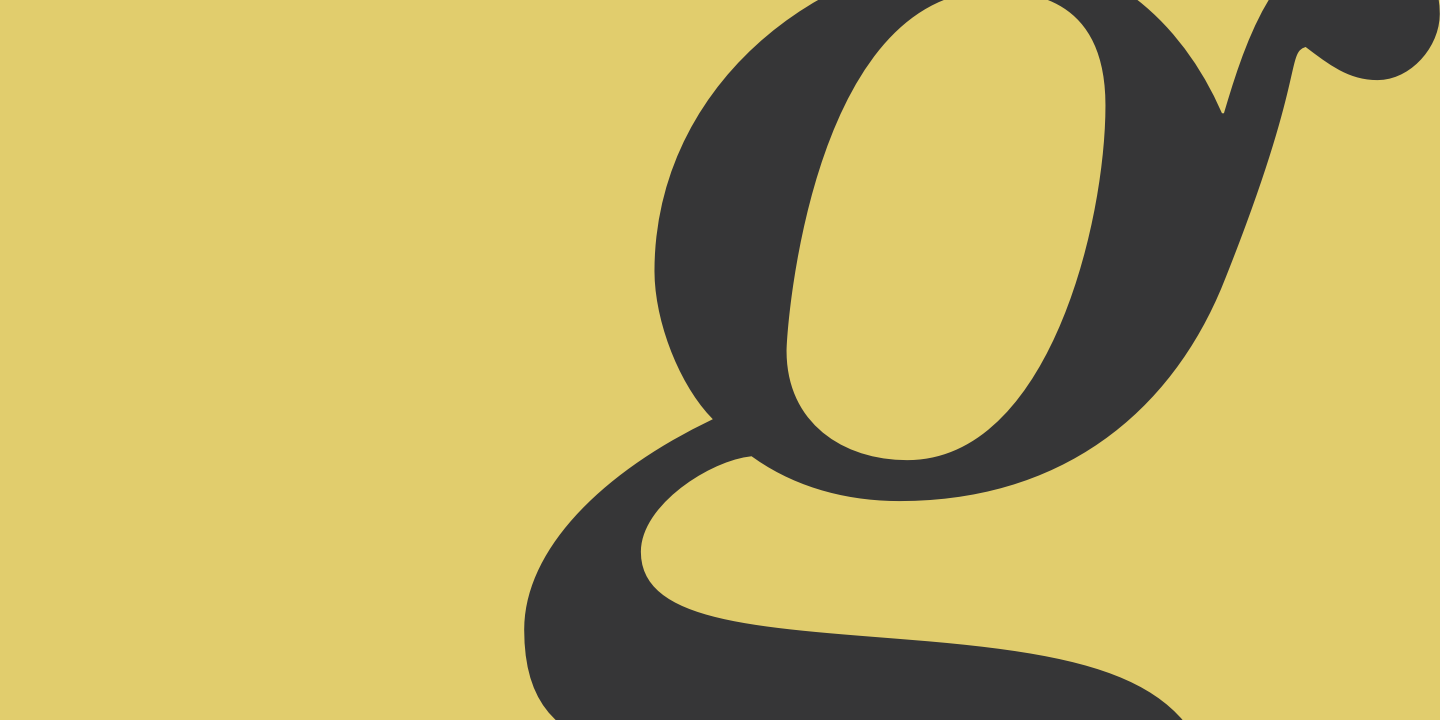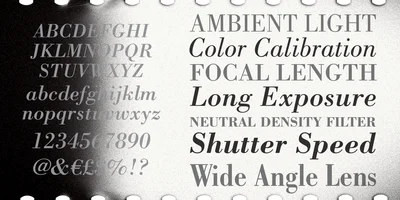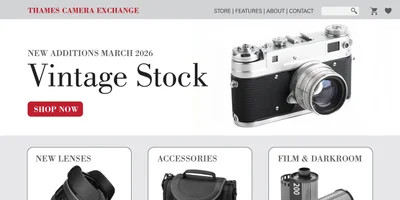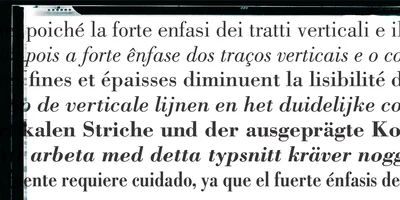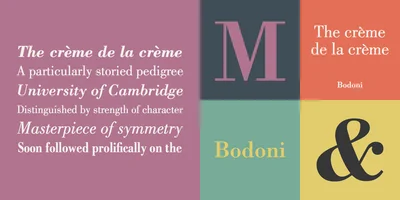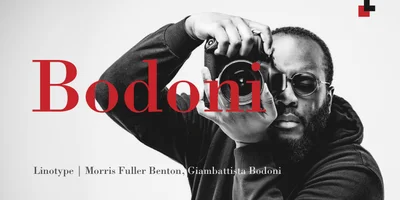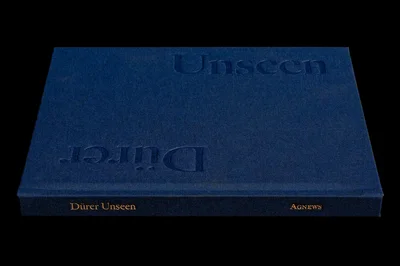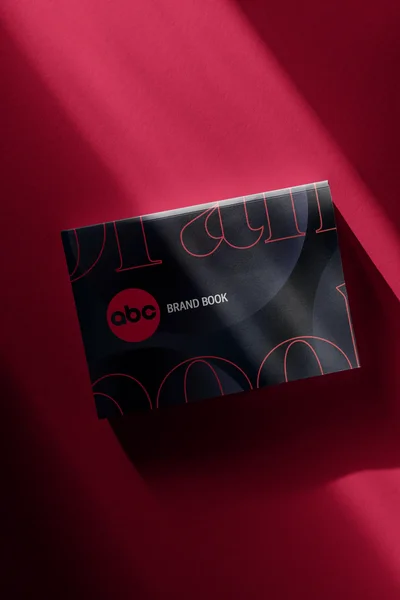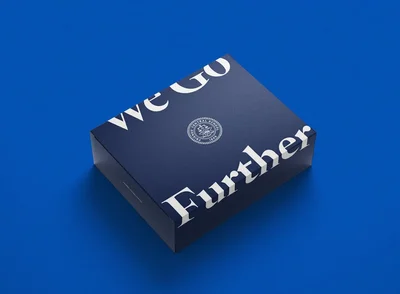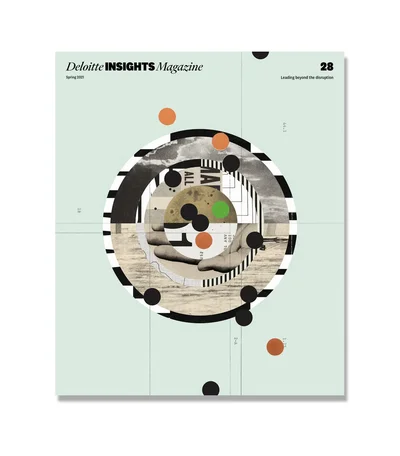
Bodoni vs Heldane
Bodoni and Heldane are both serif typefaces sharing a elegant foundation. Where Bodoni leans didone, high contrast, Heldane brings editorial, display. Compare which suits your Editorial project.
Bodoni
DidoneHigh Contrast
ElegantExpressive
Heldane
ElegantModern
EditorialDisplay
Bodoni
Heldane
| Feature | Bodoni | Heldane |
| Source | ITC (International Typeface Corporation) | Klim Type Foundry |
Recommended: Bodoni
- didone, high contrast design character
- Suited for Fashion
Consider: Heldane
- editorial, display design character
- Suited for Branding